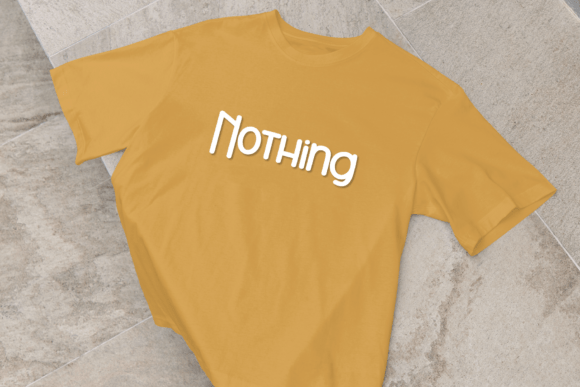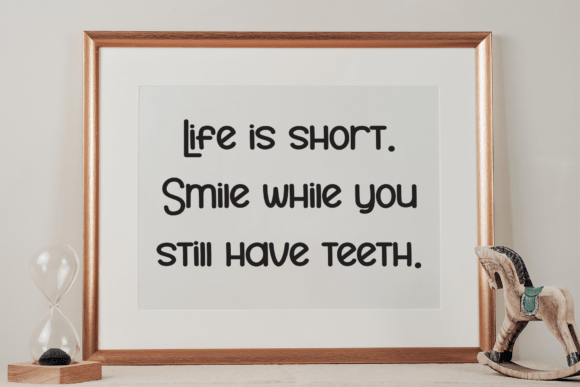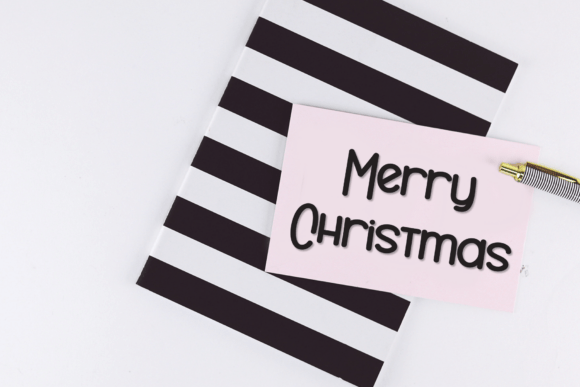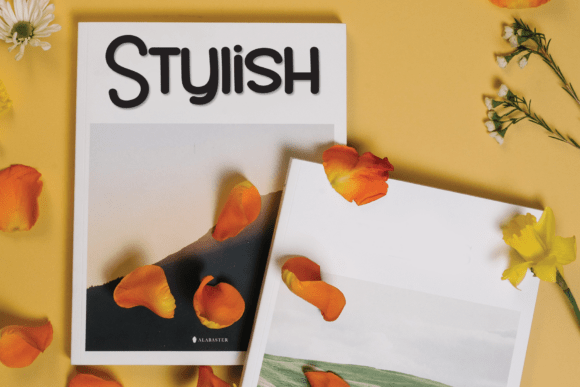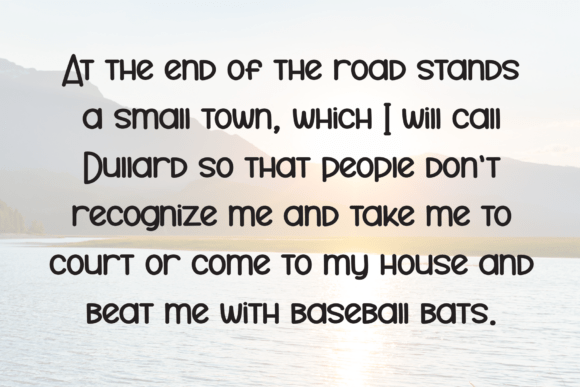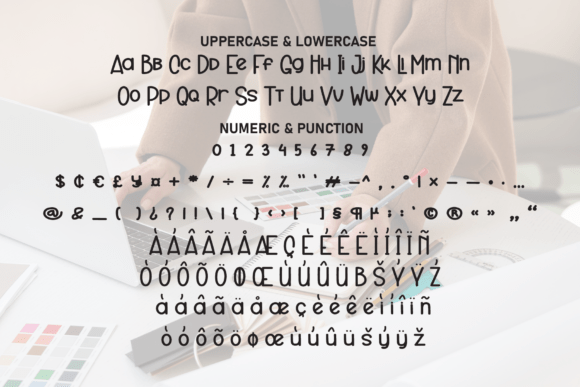
Introducing Designer Poster Font: A Charmingly Delightful Handwritten Display Font
Imagine you’re working on a wedding invitation project, and your client requests a font that’s warm, friendly, and playful. You’ve scoured the internet, but nothing seems quite right. That’s when I discovered Designer Poster Font, a charmingly delightful handwritten display font that exudes warmth and friendliness. With its playful nature, this font is perfect for concocting inviting wedding invitations, heartwarming cards, and all design projects demanding a dash of fun!
A Personal Encounter with Designer Poster Font
I was working on a project for a client’s birthday party invitation, and I wanted to create something special. I stumbled upon Designer Poster Font, and it instantly caught my attention. The font’s whimsical charm and fun-loving personality made it an instant favorite. I used it to create a custom invitation that exceeded my client’s expectations.
Honest Review: The Good, the Bad, and the Quirky
- ✨ The font’s playful and whimsical nature makes it perfect for creative projects.
- ✅ The handwritten display font exudes warmth and friendliness, making it ideal for wedding invitations and cards.
- 💕 The font’s unique character set and OpenType features make it versatile and easy to use.
⚠️ One thing to note is that Designer Poster Font can be a bit over-the-top for formal projects. It’s best to use it in moderation and balance it with other fonts for a more cohesive look.
🤔 Another thing to consider is that some characters may not work well in smaller font sizes. Experiment with different sizes to find the sweet spot.
Designer Poster Font was created by a talented font designer who wanted to create a font that would bring joy and whimsy to design projects. Inspired by traditional handwritten fonts, the designer added a playful twist to create a unique and charming font.
Q: What type of projects is Designer Poster Font best suited for?
A: Designer Poster Font is perfect for creative projects that require a playful and whimsical touch, such as wedding invitations, cards, and party invitations.
Q: Is Designer Poster Font available in different languages?
A: Designer Poster Font may not have full language support, but it does include a range of glyphs and OpenType features that can be used to create custom characters.